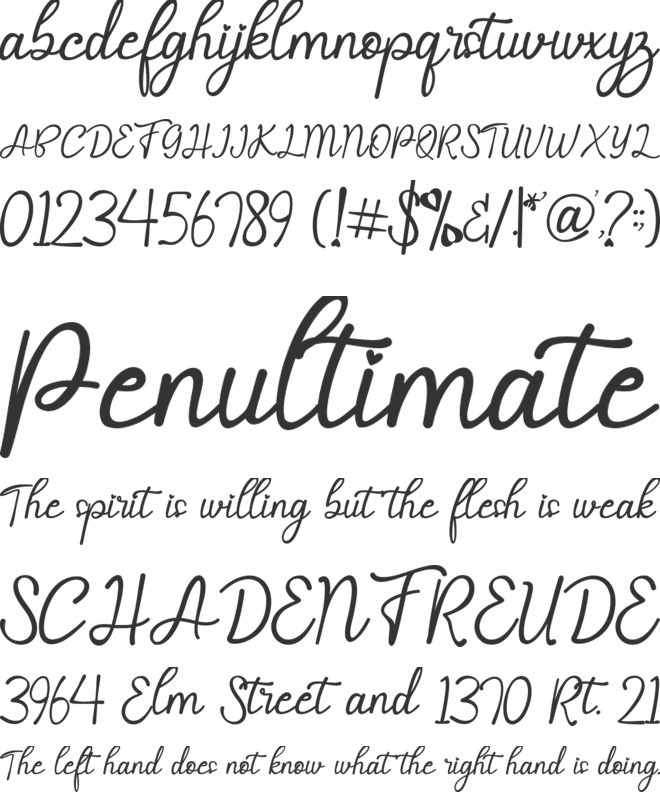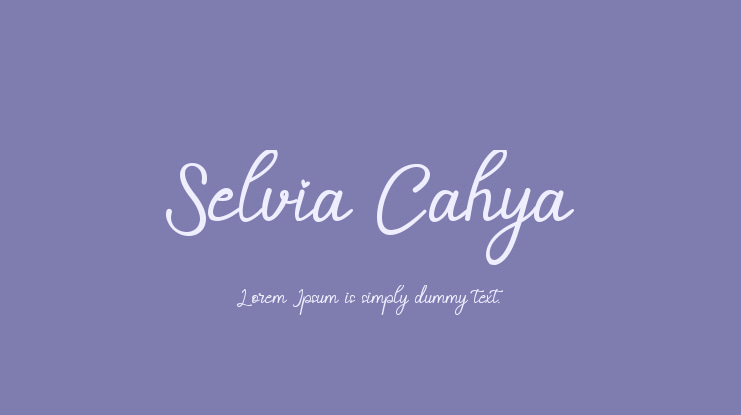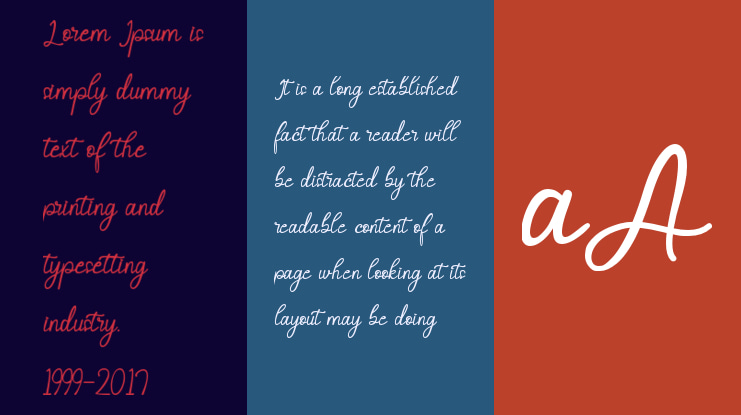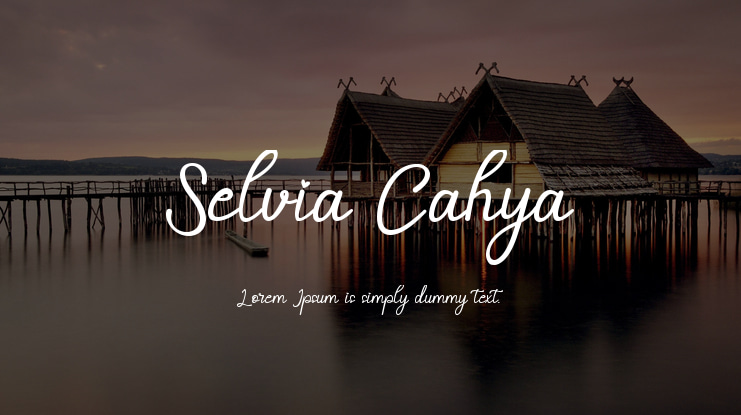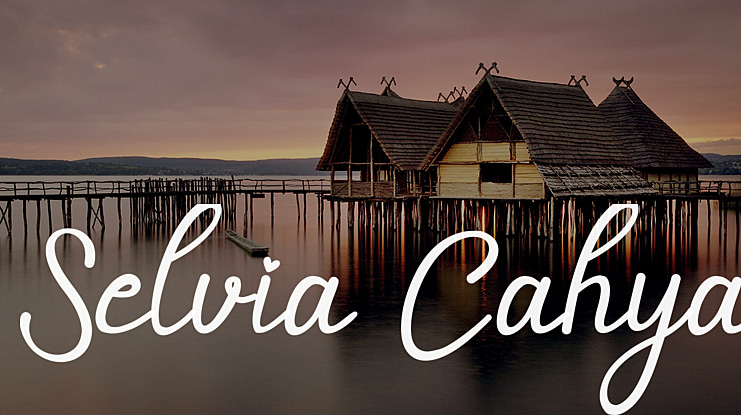
Selvia Cahya Font
Selvia Cahya is a beautiful modern script font. Can be used for a variety of projects, such as creating wedding invitations or beautiful childbirth invitations, beautiful artwork, interesting social media posts, and funny greeting cards.